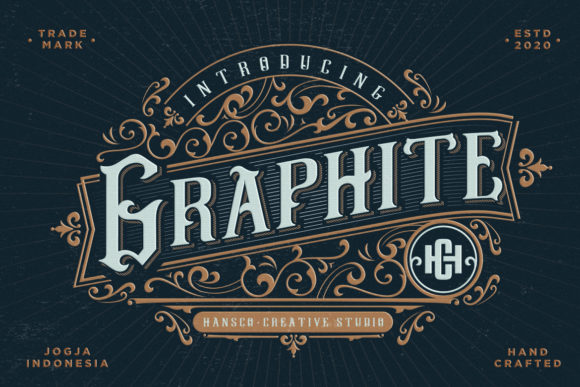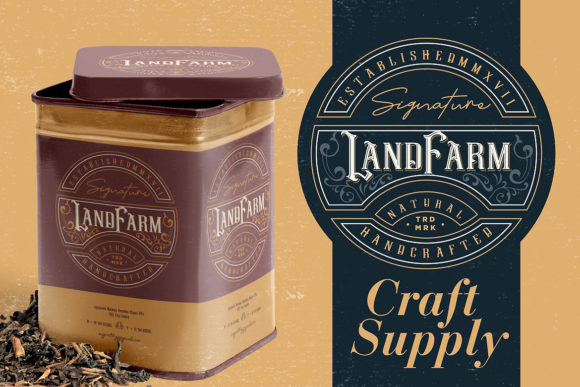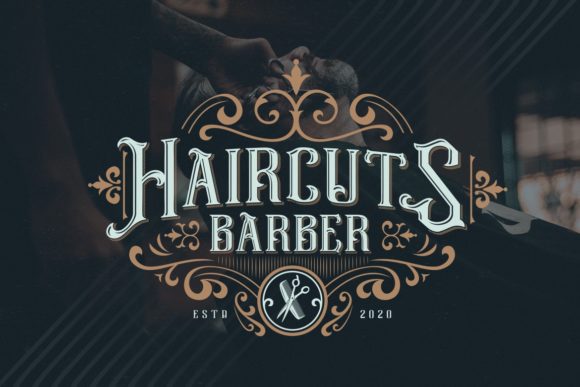
Graphite Font: A Bold Vintage Display Font for Creative Logos & Posters
About the Graphite Font
Elevate your designs with Graphite Font, a font that combines sophistication with readability. Graphite is a sweet and cool display font with a unique look. Fall in love with its vintage look and beautiful ornaments.
Graphite’s vintage styling and decorative elements make it ideal for headlines, logos, and short impactful text on packaging or posters. Its ornamental nature, however, limits its effectiveness for body copy or UI elements where readability is paramount; long blocks of text set in Graphite would be difficult to read.
The font possesses a playful yet sophisticated personality. Brands aiming for a retro-chic or vintage-inspired aesthetic would find it highly suitable. Consider pairing Graphite with a clean sans-serif like Montserrat for a balanced contrast, or a classic serif such as Garamond for a more traditional feel. A simple geometric sans-serif could also provide a modern counterpoint.
For a more whimsical approach, a delicate script font could complement Graphite’s ornamentation, though careful consideration of kerning and spacing would be crucial to maintain legibility.
Graphite Font Usage Examples
Graphite Font Example